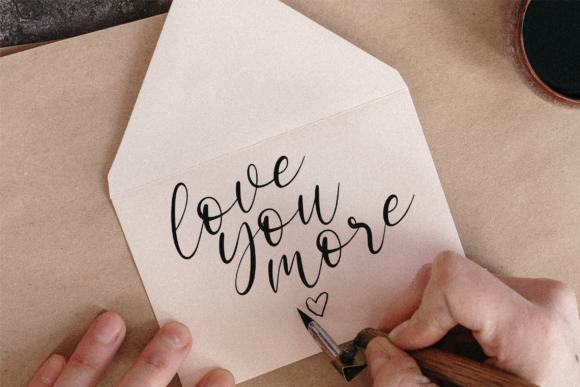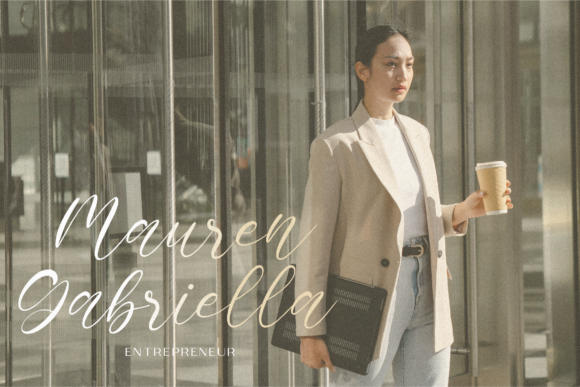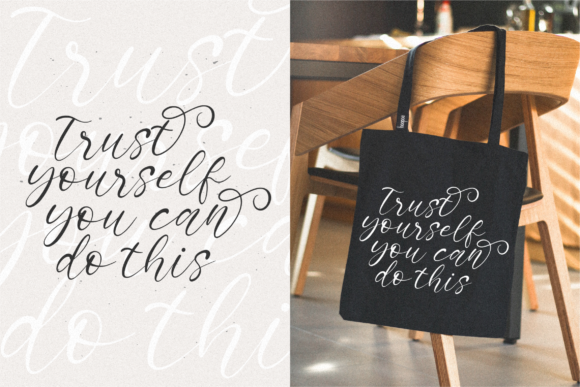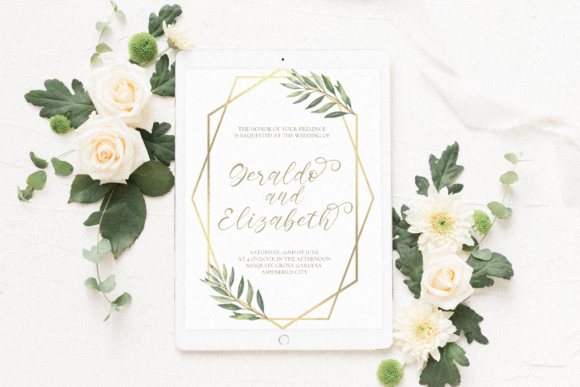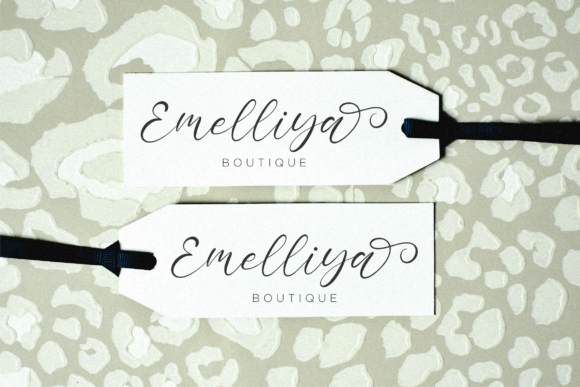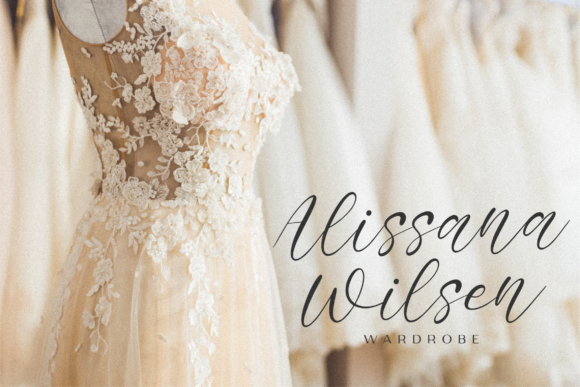
Have you ever stared at a blank page, trying to come up with the perfect design concept, only to be stuck for hours? It’s a feeling we’ve all been there, but what if the right font could spark your creativity and set your project off in the right direction? For designers and creatives, finding the perfect font can be the key to unlocking a beautiful and cohesive design.
Enter the Almondwild Font, a stunning script font that’s perfect for adding a touch of elegance to your next project. With its thin lettering and graceful style, this font is ideal for creating gorgeous wedding invitations, beautiful stationery art, and eye-catching social media posts. Plus, its PUA encoding makes it easy to access all glyphs and swashes, giving you endless design possibilities.
Almondwild Font Key Features
- Font Size: The font comes in a single font size, but it’s highly scalable, making it suitable for use in various contexts, from small text to large headings.
- Resolution: Almondwild Font is designed to be resolution-independent, ensuring that it looks crisp and clear at any resolution, from 72 dpi to 300 dpi.
- Unique Characteristics: The font features a unique blend of modern and vintage elements, with intricate details and subtle texture, making it perfect for creative projects and designs that require a touch of elegance.
- Style Options: The font comes in several styles, including regular, bold, italic, and bold italic, offering users a range of options to suit their design needs.
Almondwild Font Review
Overall, I think Almondwild is a unique and charming font that can add a touch of whimsy to various design projects ✨. Its combination of playful and elegant elements makes it suitable for both modern and traditional designs.
- ✨ Variety of styles: Almondwild comes in several weights, making it versatile for different design purposes.
- ✨ Beautiful brushstrokes: The font’s hand-drawn feel gives it a personal touch that’s perfect for creative projects.
- ✨ Good legibility: Despite its cursive nature, Almondwild is still easy to read, even at smaller font sizes.
- ⚠️ Limited language support: Almondwild’s character set is limited to the Latin alphabet, which may not be suitable for projects that require multiple languages.
- ⚠️ Not ideal for small text: While Almondwild is legible, it’s still a cursive font, and small text may be difficult to read, especially for those with vision impairments.
Overall, I think Almondwild is a great choice for designers who want to add a touch of personality to their projects. While it may have some limitations, its unique style and versatility make it a valuable addition to any font library.
Tips for Getting the Most Out of Almondwild Font
1. Use Almondwild Font for creative and artistic projects, such as invitations, brochures, and social media graphics.
2. Pair Almondwild Font with other creative fonts to create a unique and eye-catching design.
3. Experiment with different font sizes, colors, and styles to achieve the desired look and feel.
Almondwild Font is ideal for:
1. Creative and artistic projects.